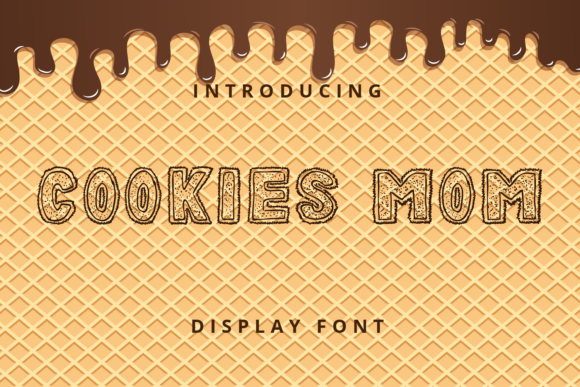
Step into the realm of handwritten charm with Cookies Mom Font, a delightful display font crafted by the talented Planetz studio. This whimsical font exudes a captivating blend of playfulness and elegance, adding a touch of joy to any design project.
Unleash your creativity and let Cookies Mom Font dance across your digital canvas. Its charming imperfections and playful quirks will bring life to your stationary art, social media posts, and any other creative endeavor. Create personalized invitations, heartwarming greeting cards, and enchanting logos that leave a lasting impression.
With Cookies Mom Font, your designs will radiate a sense of warmth and approachability. Its friendly and inviting nature makes it perfect for businesses looking to connect with their customers on a personal level. Engage your audience with visually appealing content that resonates with their emotions and leaves them wanting more.
Embrace the delightful personality of Cookies Mom Font. Let its quirky charm elevate your designs to new heights and create a lasting impact on your audience. Dive into the world of visual storytelling and let your imagination soar with this captivating display font.